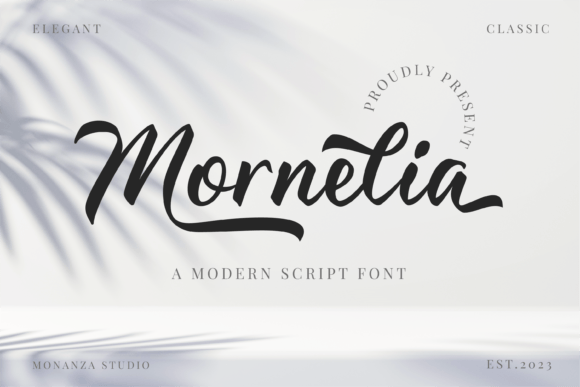
Introducing Mornelia Font: The Epitome of Grace and Sophistication for Your Digital Creations.
In a world saturated with monotonous and uninspired fonts, Mornelia Font emerges as a beacon of creativity, elegance, and distinction. This modern script font, meticulously crafted by the talented designers at Monanza Studio, is an ode to timeless beauty and artistic expression.
Mornelia Font captivates with its graceful curves, delicate swashes, and captivating ligatures. Each character is a testament to the artistry and passion poured into its design. Its undeniable charm lies in its ability to transform ordinary words into captivating works of art.
Whether you're a seasoned designer seeking to elevate your projects or a beginner yearning to add a touch of flair to your digital creations, Mornelia Font is your perfect companion. Its versatility knows no bounds, extending effortlessly from personal invitations and greeting cards to professional logos and marketing materials.
Dive into the world of Mornelia Font and experience the joy of creating designs that speak volumes. Its enchanting aura will cast a spell on your audience, leaving them spellbound by the beauty and sophistication of your creations.
With Mornelia Font, you'll unlock a treasure trove of creative possibilities. Its compatibility with various design software ensures seamless integration into your workflow. Let your imagination soar as you craft stunning visuals that resonate with your audience and leave a lasting impression.
Don't settle for ordinary fonts that blend into the background. Embrace the allure of Mornelia Font and elevate your designs to new heights. Its timeless elegance and captivating charm will transform your creative endeavors into masterpieces that capture hearts and ignite imaginations.